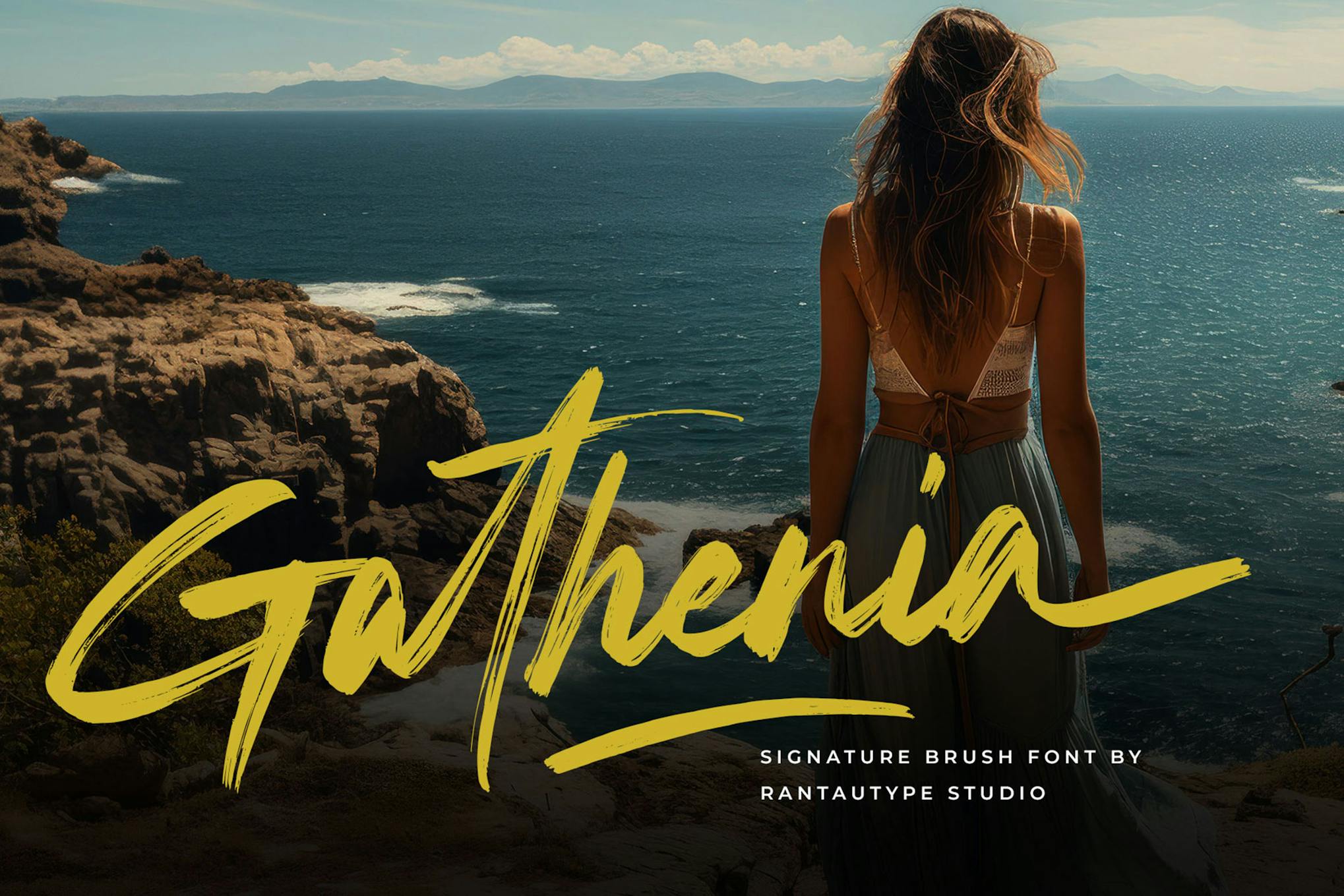
Gathenia Signature Brush Font
The Gathenia Signature Brush Font excels in artistic design applications including creative brand identities, artisan business logos, handcrafted product packaging, artistic wedding invitations, creative portfolios, boutique signage, art studio branding, craft business cards, artistic social media graphics, and expressive marketing materials. Its brush signature style makes it perfect for projects requiring authentic artistic character that communicates creativity and establishes personal connections with audiences seeking handmade aesthetics and genuine artistic expression.
What makes the Gathenia Signature Brush Font genuinely exciting is its exceptional ability to capture the spontaneous energy and organic beauty of natural brush painting. The font features flowing, expressive strokes with authentic brush textures and artistic proportions that create a distinctly creative appearance. Each character displays remarkable craftsmanship with natural brush variations, organic connections, and painterly details that give text a genuinely hand-painted quality. The font's artistic character and dynamic rhythm create an atmosphere of creativity while maintaining the personal touch of authentic brush lettering.
The Gathenia Signature Brush Font family typically includes regular weight with extensive character coverage, featuring uppercase and lowercase letters, numerals, punctuation marks, and international characters. The typeface often incorporates stylistic alternates, contextual ligatures, and artistic brush effects that enhance its signature authenticity. These additional elements provide designers with creative flexibility to customize text appearance and achieve more natural-looking brush lettering that reflects the font's artistic and expressive character.
This distinctive brush font distinguishes itself through its remarkable balance of artistic spontaneity and professional usability. Unlike rigid digital fonts that lack creative energy, Gathenia Signature Brush Font embraces the beautiful imperfections and natural variations that make brush lettering so appealing. The font's artistic character makes it ideal for creative businesses, art-related brands, and handmade projects where expressing personality and creativity is essential for connecting with audiences who appreciate authentic craftsmanship and artistic expression.